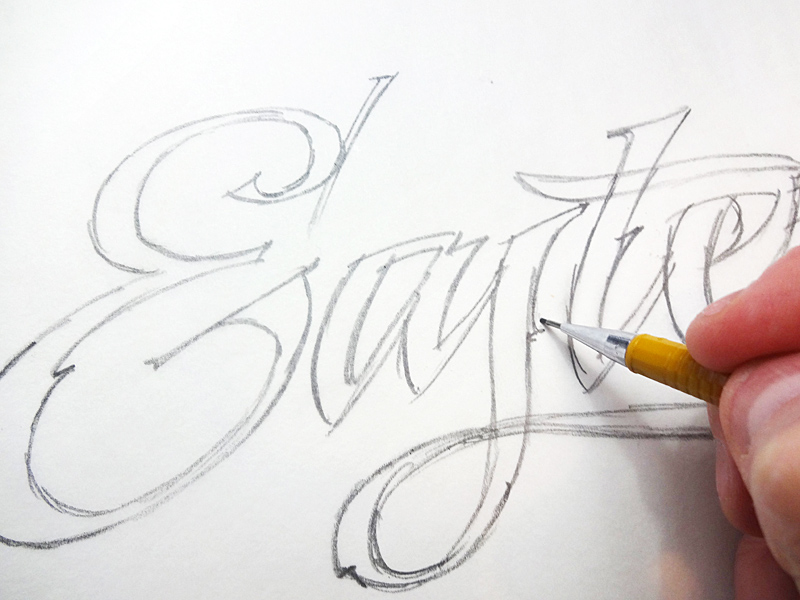
Nearly 2 years in the making, LHF Black Rose Script is the perfect blend of hand-lettering and modern technology. This beautiful script is loaded with features, such as automatic ligatures, discretionary ligatures, bonus ending characters, swashes, and several alternates (302 glyphs to be exact).
You receive 3 versatile fonts to match different moods: Regular, Block Shadow (placed under Regular), and an expertly-crafted Inked version which has been distressed to look like freshly inked lettering.
One look at your designs and your clients will fall in love with Black Rose Script. And with so many carefully designed alternates to use, they'll probably think you hand-lettered it yourself!